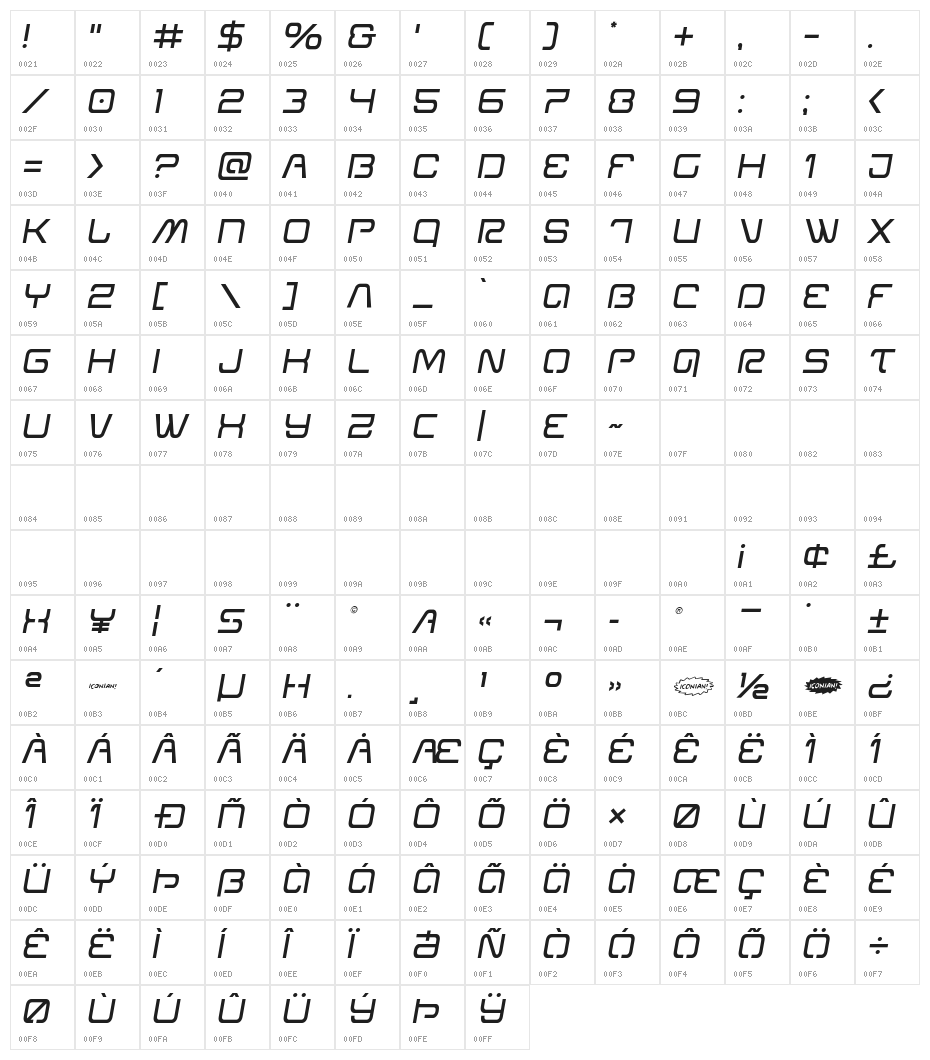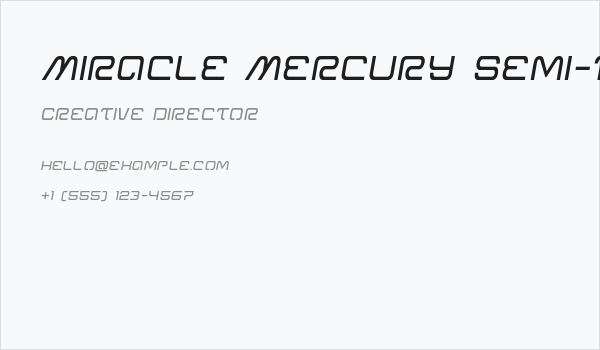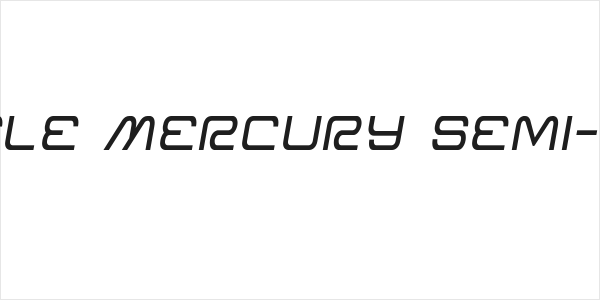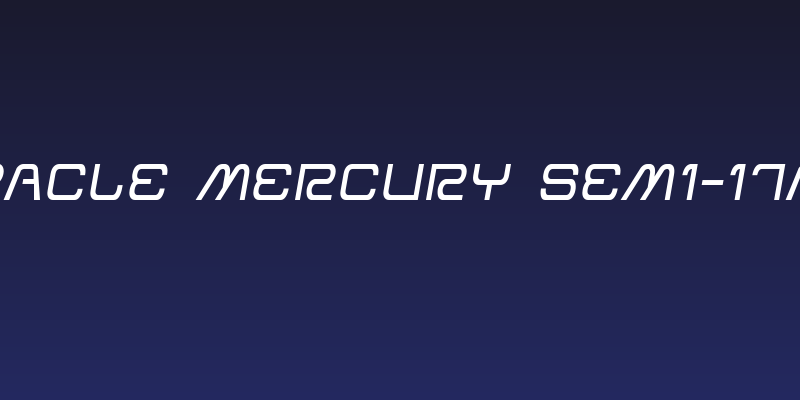
Miracle Mercury Semi-Italic Font
Miracle Mercury Semi-Italic Description
This font features a modern, geometric design with a semi-italic slant, giving it a dynamic and forward-moving appearance. The characters are constructed with clean, straight lines and rounded edges, creating a futuristic and sleek look. The uppercase and lowercase letters maintain a consistent style, with a slight tilt that adds a sense of motion. The numerals and special characters follow the same design principles, ensuring uniformity across all glyphs. This font's unique style makes it suitable for projects that require a contemporary and innovative touch.
| Proposed Projects | Ideal for technology branding, modern advertising, futuristic posters, and innovative product packaging. |